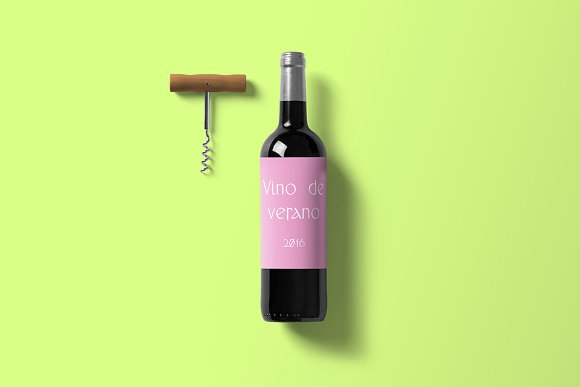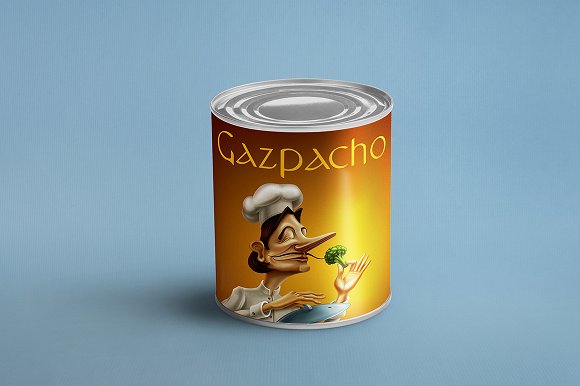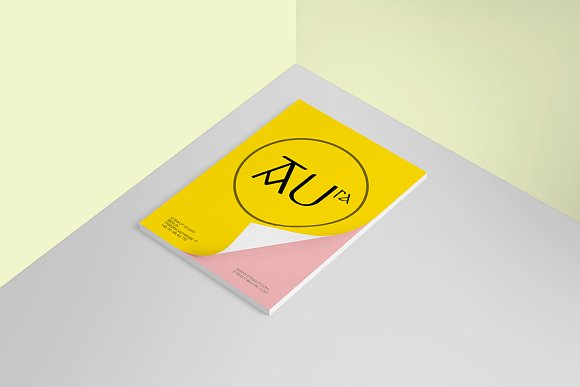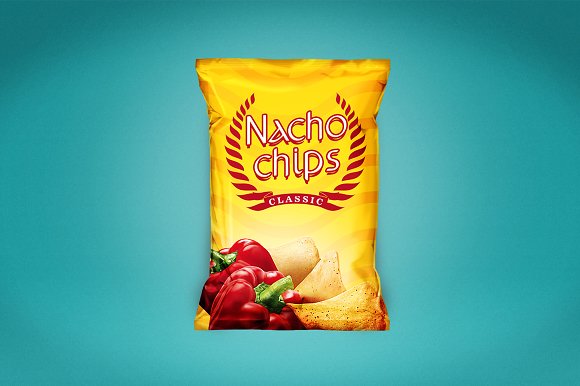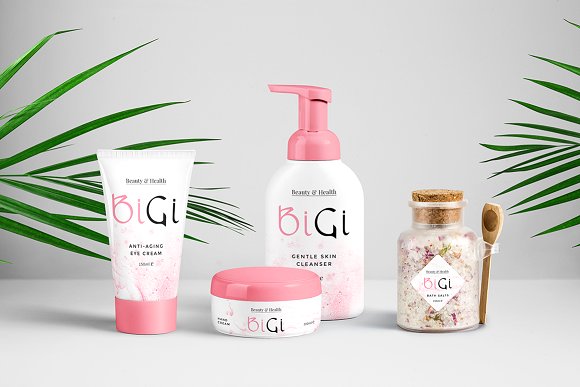
Discover the Whimsical World of Anchor Font: A Cyrillic-Inspired Display Font
In the realm of typography, fonts play a vital role in bringing creative visions to life. For designers and crafters seeking to add a touch of magic to their projects, the Anchor font is an excellent choice. This stunning display font, created by Etewut, draws inspiration from old Russian fairy tales and features beautiful Cyrillic lettering. In this article, we’ll delve into the enchanting world of Anchor font, exploring its features, uses, and benefits.
The Origins of Anchor Font
Anchor font is the brainchild of Etewut, a talented font designer with a passion for creating unique and captivating typography. Inspired by the mystical world of old Russian fairy tales, Etewut aimed to craft a font that would evoke a sense of wonder and enchantment. The result is Anchor, a display font that boasts an distinctive, whimsical flair.
Cyrillic Lettering and Old Russian Fairy Tales
One of the standout features of Anchor font is its incorporation of Cyrillic lettering. This adds a touch of authenticity and cultural depth to the font, making it perfect for projects that require a nod to Eastern European heritage. The old Russian fairy tales that inspired Anchor font are filled with magical creatures, brave heroes, and mystical lands. By tapping into this rich cultural heritage, Etewut has created a font that is both nostalgic and timeless.
Using Anchor Font in Your Projects
So, how can you incorporate Anchor font into your next project? The possibilities are endless! Here are a few ideas to get you started:
- Magical branding: Add a touch of whimsy to your brand’s identity with Anchor font. Perfect for companies that specialize in fantasy, adventure, or children’s products.
- Fairy tale-inspired designs: Create enchanting posters, flyers, or brochures that transport your audience to a world of wonder.
- Cyrillic language projects: Anchor font is an excellent choice for projects that require Cyrillic lettering, such as Russian-language publications or Eastern European cultural events.
- Crafting and DIY: Use Anchor font to add a personal touch to your crafting or DIY projects, such as handmade cards, gift tags, or journal entries.
Benefits of Using Anchor Font
So, why choose Anchor font for your next project? Here are just a few benefits:
- Unique and eye-catching: Anchor font is sure to grab attention with its distinctive, whimsical design.
- Cultural significance: By incorporating Cyrillic lettering and old Russian fairy tale inspiration, Anchor font adds a touch of cultural depth and authenticity to your projects.
- Versatile: Anchor font can be used in a wide range of projects, from branding and advertising to crafting and DIY.
- Easily readable: Despite its ornate design, Anchor font is surprisingly easy to read, making it perfect for use in both digital and print materials.
In conclusion, Anchor font is a captivating display font that is sure to add a touch of magic to your next project. With its Cyrillic lettering and old Russian fairy tale inspiration, this font is perfect for designers and crafters seeking to create something truly unique and enchanting. Whether you’re working on a branding project, crafting a DIY masterpiece, or simply looking to add some whimsy to your designs, Anchor font is an excellent choice. So why not give it a try and see the magic for yourself?